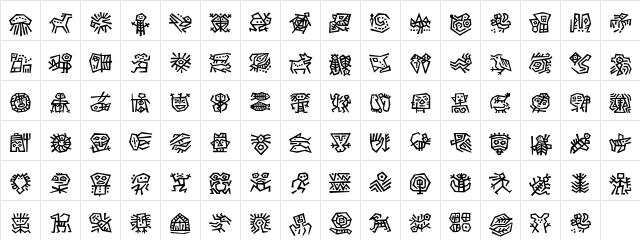
DfAncestorITC Regular
Design Context for DfAncestorITC Typeface
DfAncestorITC is a composed and adaptable typeface that performs quietly and consistently across a wide range of design contexts.